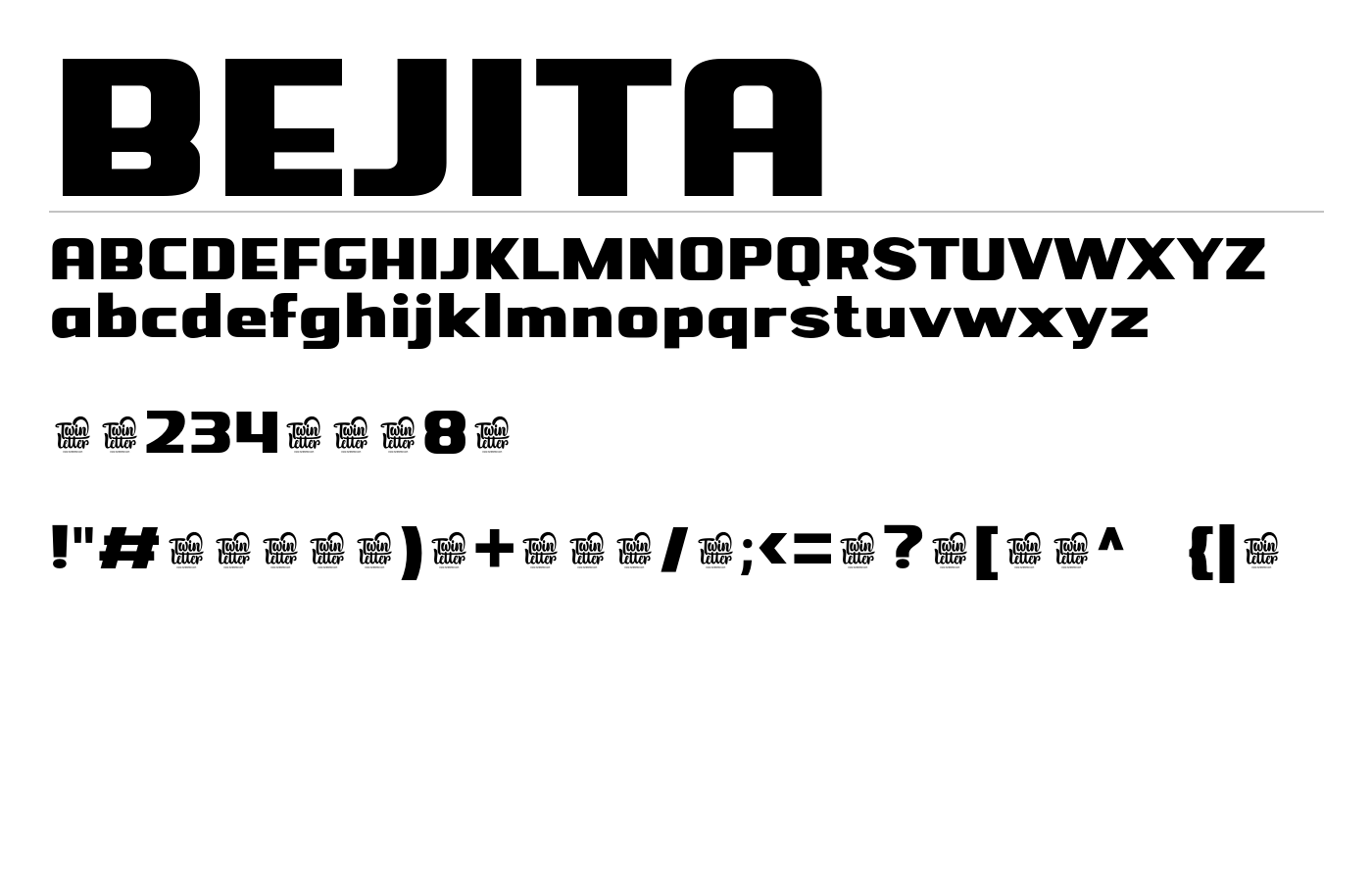
BEJITA is a bold, geometric sans serif font with a strong, modern presence. Its thick, square shapes and high x-height make it highly legible and impactful, ideal for attention-grabbing headlines, logos, and branding that require a sturdy, confident look. This font works well in contemporary design contexts, lending a sense of strength and clarity to fashion, sports, and tech-related projects.
BEJITA Font
About BEJITA Font
| Font family | BEJITA Font |
| Designer | Rozak |